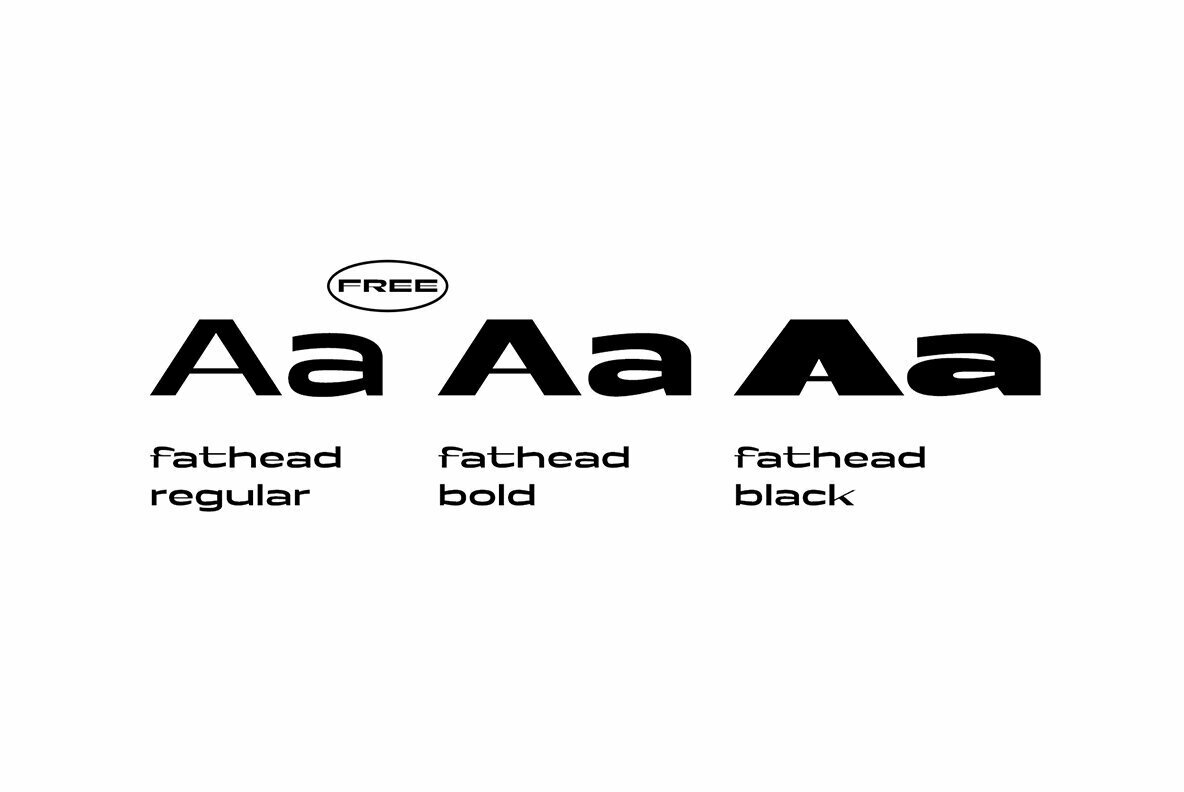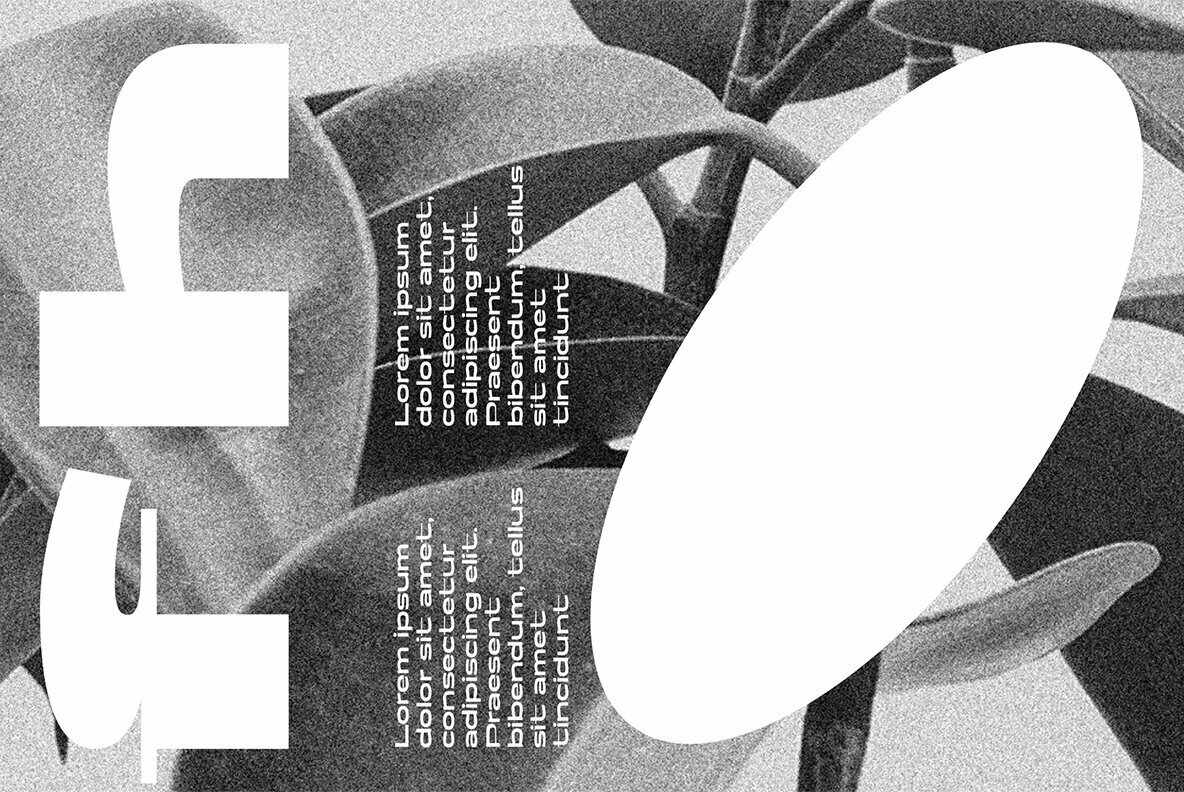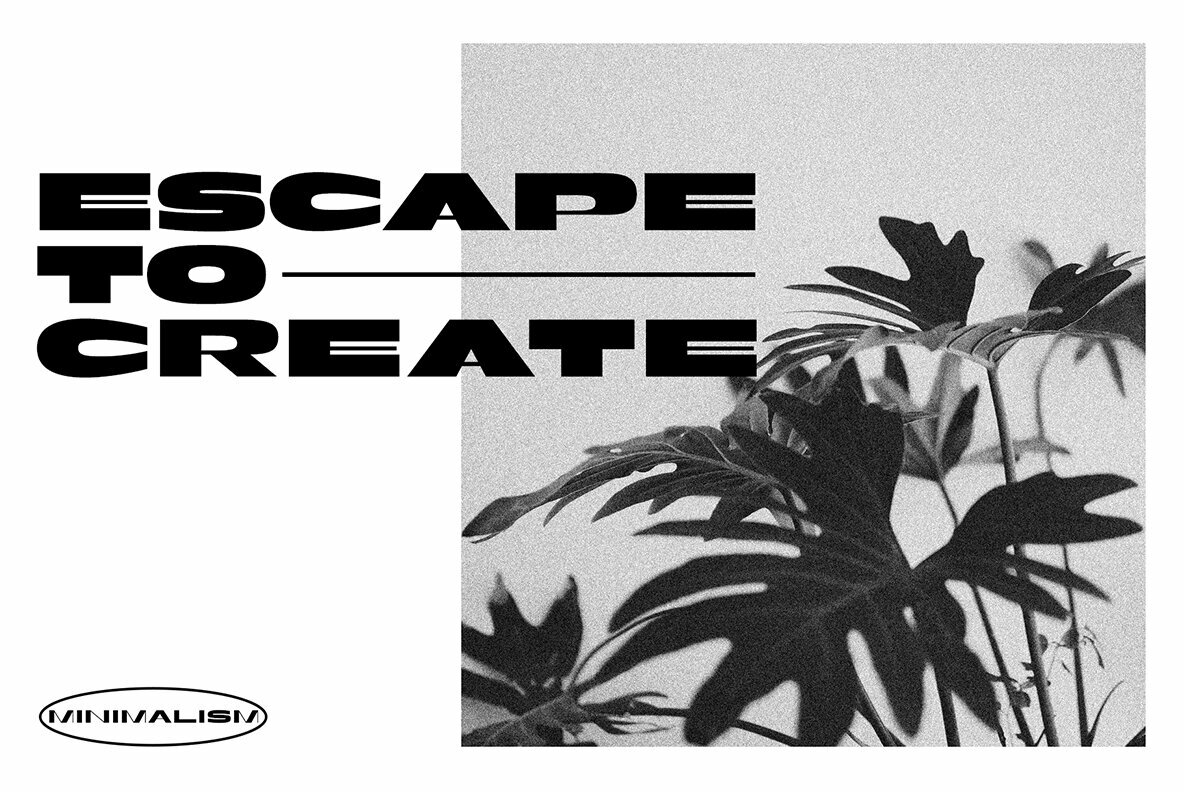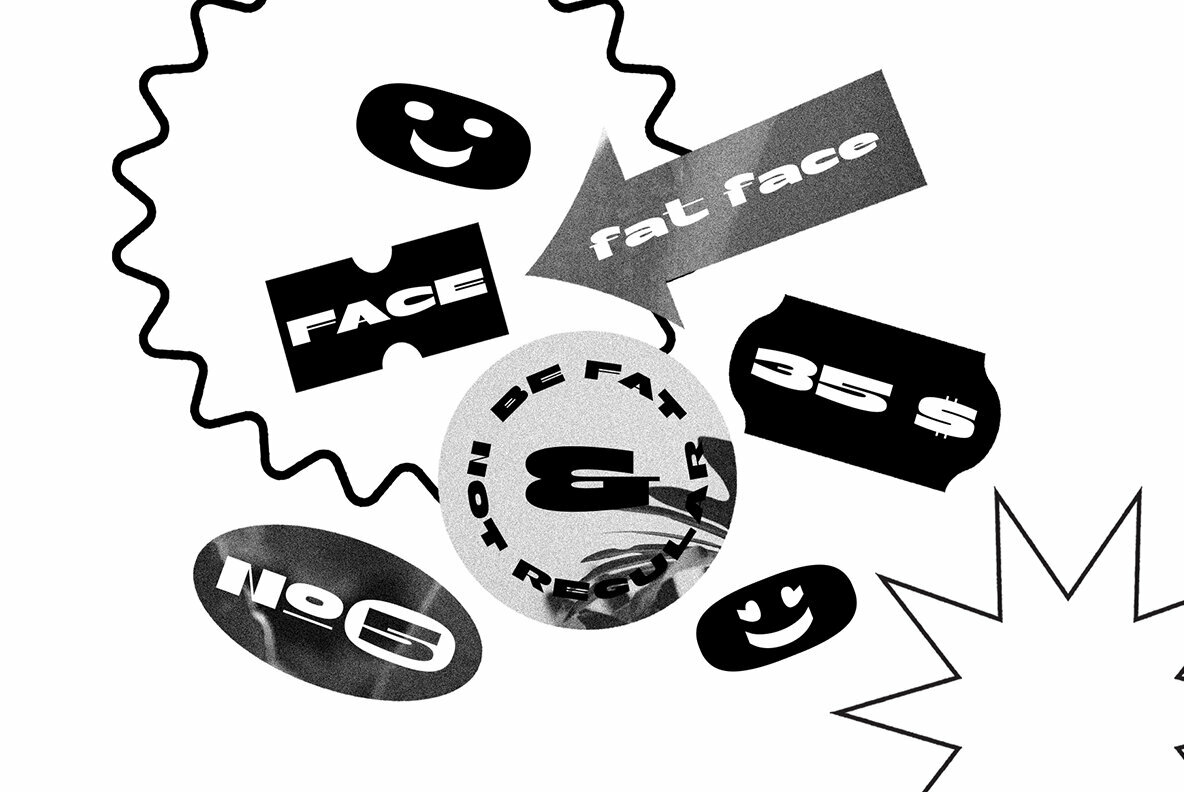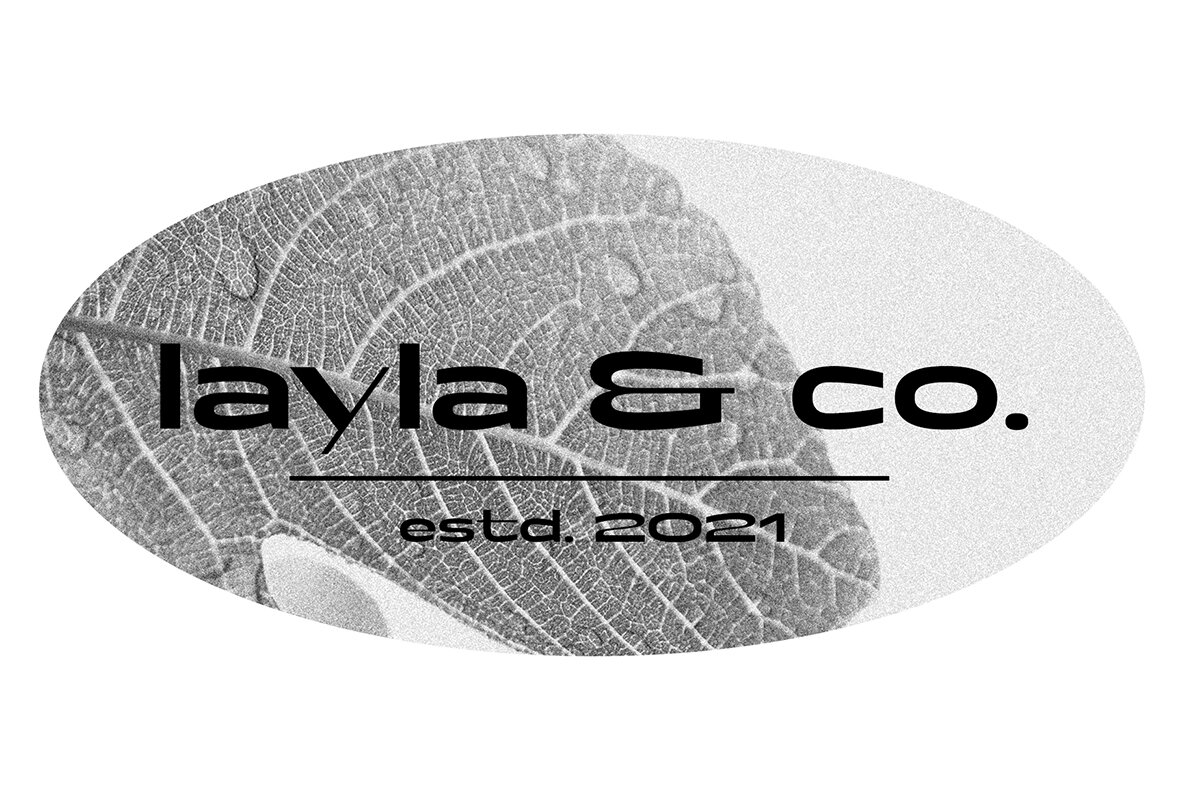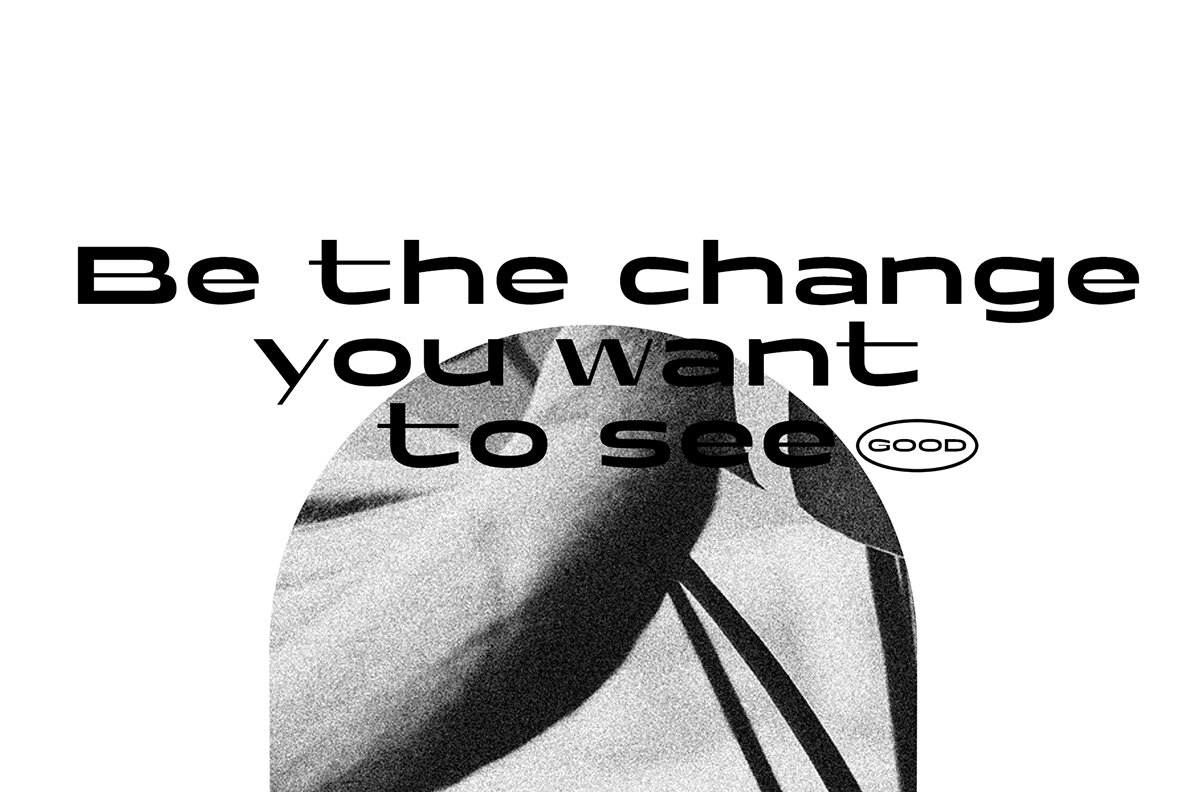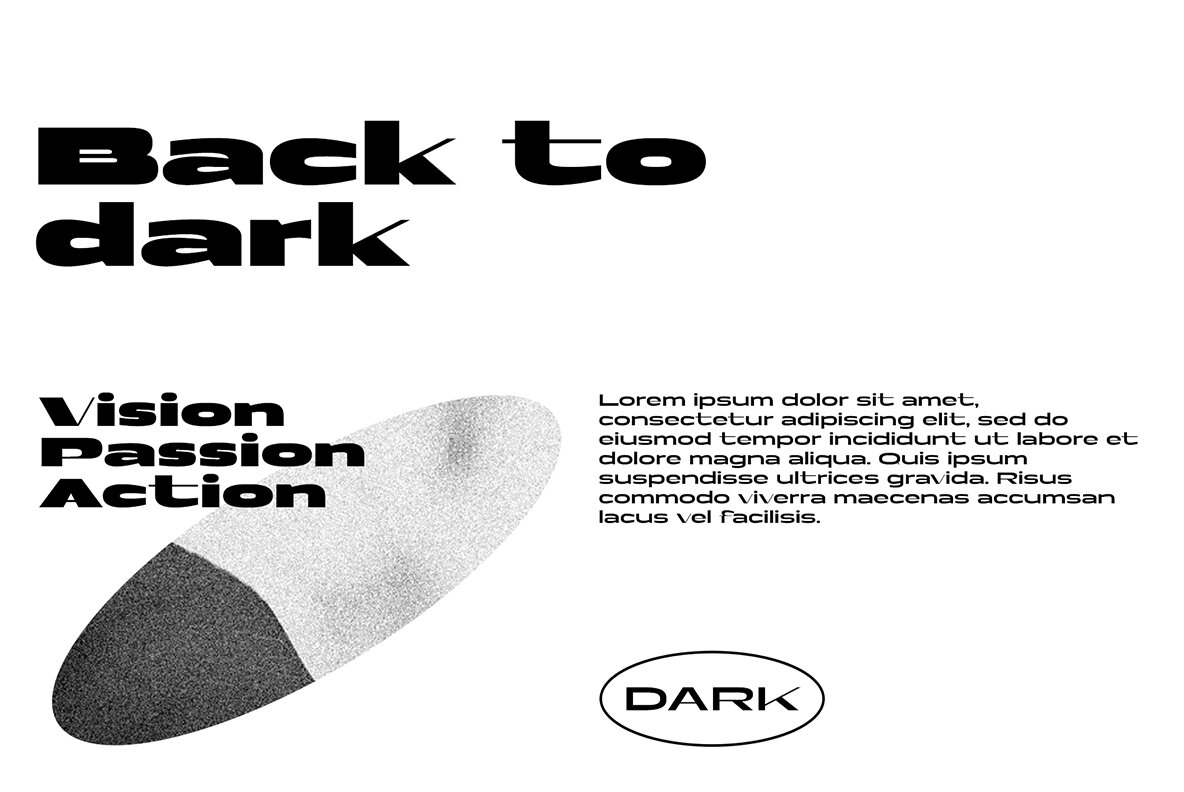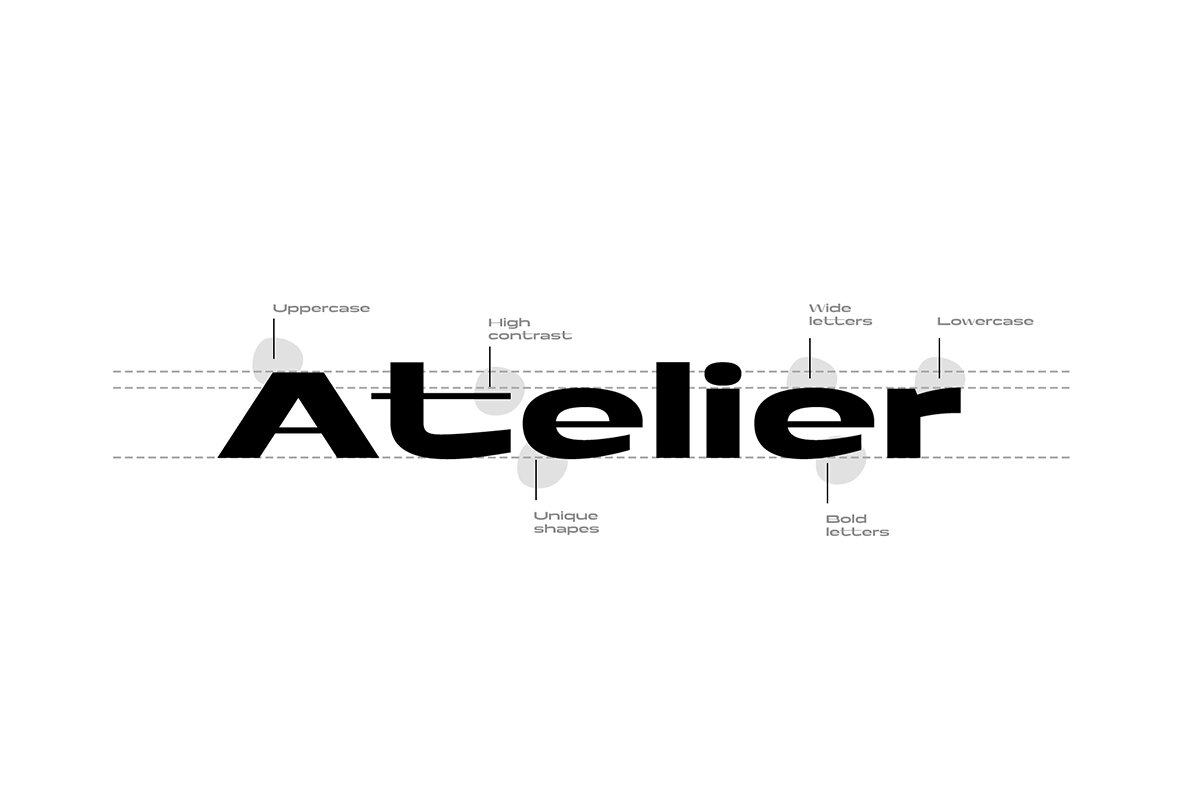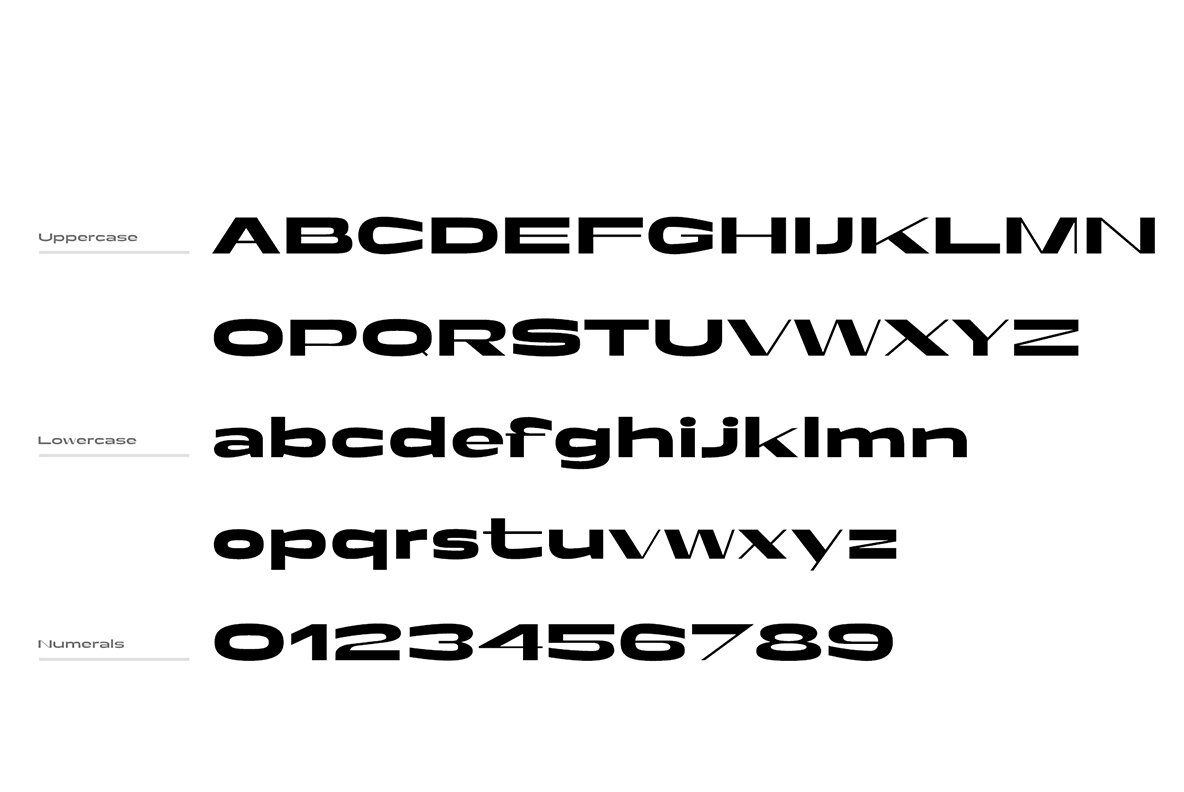
Fathead Font
Introducing Fathead, a wide sans serif display font. Fathead has high contrast in strokes, aiming for that border between being legible and abstract, having extreme proportions, unique shapes, dense kern and a overall strong, heavy look. This typeface comes in three weights, Fathead Regular, Bold and Black. Each weight has 103 glyphs, an uppercase and lowercase alphabet and standard Latin script support. Being a display font is the perfect fit for pattern-like layouts, posters, book covers or block of texts. With its wide extended width base, diversity in proportions and complexity of shapes, this bold font family was designed for maximum visual and emotional impact. You have to get creative!